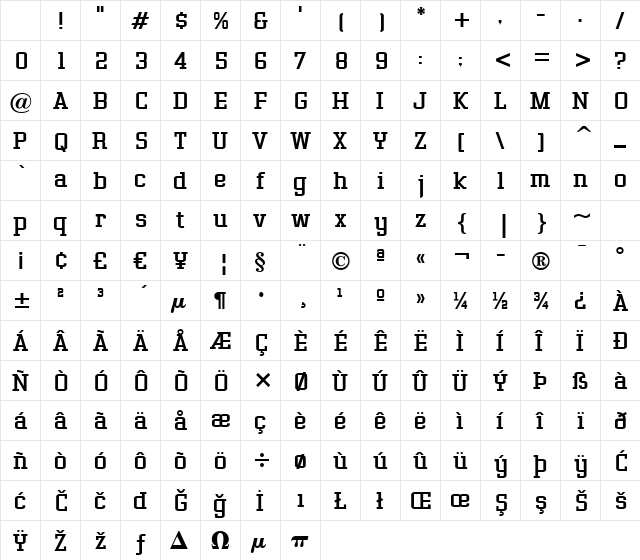
Gasoline Serif BTN carries the refined structure of traditional serif typography, with bracketed terminals and considered proportions that communicate credibility and craft.
Pro Tip: Use Gasoline Serif BTN for editorial body copy and considered headline work. Pair with a neutral sans for UI elements or captions to create a classic hierarchy.